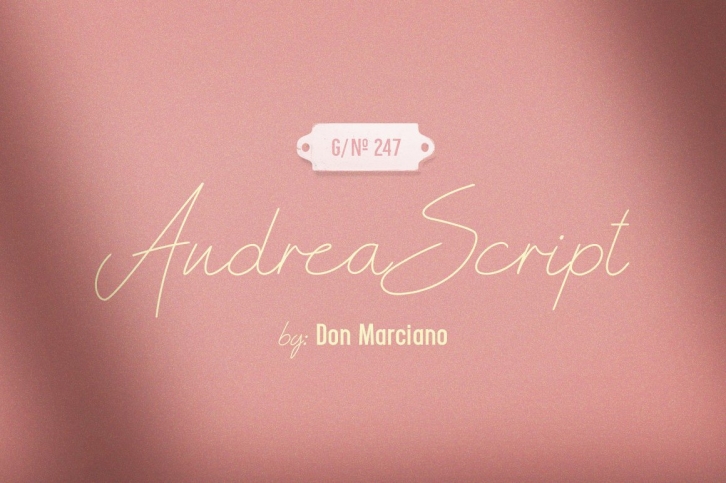
Andrea Script Thin is a great font that was designed by DonMarciano. Imagine the amount of combinations you can create using this font! The archive is 11.34 MB and it was released on March 18, 2020. Andrea Script Thin looks beautiful on wedding invitations, greeting cards, logos, posters, labels, t-shirt designs, logos, business cards and is perfect for use in ink or watercolor works, fashion, magazines, packaging and food menus, children's books and more!